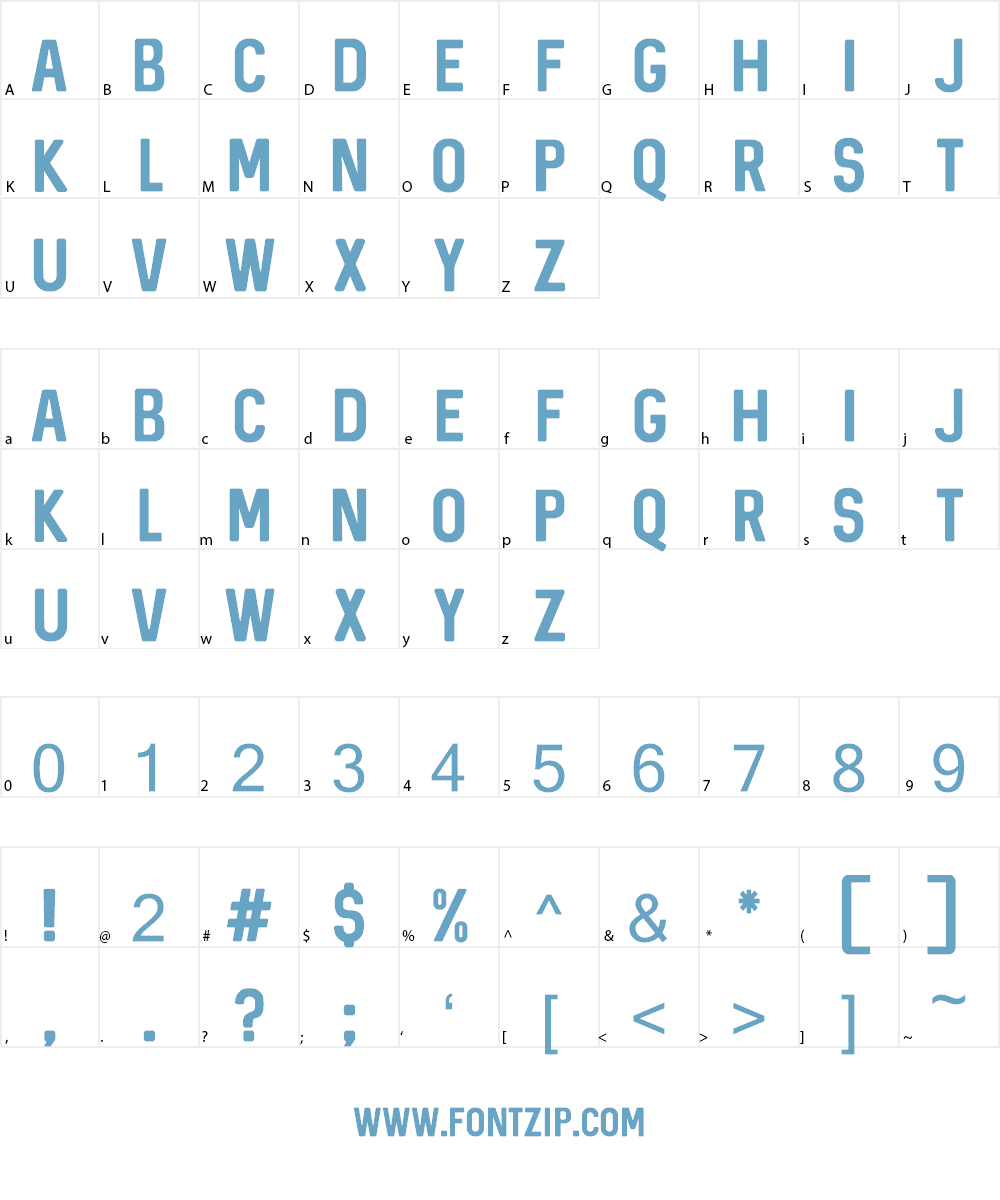
With "Sequel" I wanted to design a multifunctional Typeface. I created Ligatures for "The" and "of", so you just need to type 'the' or 'of" and it automatically converts it to my ligatures.